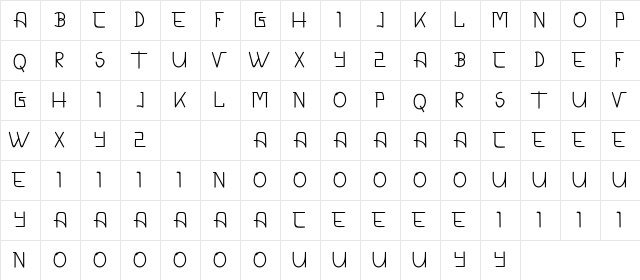
CALDERDALE DEMO Light
| Foundry | edric studio |
| Designer | Yasri |
Design Context for CALDERDALE DEMO Typeface
CALDERDALE DEMO is a composed and adaptable typeface that performs quietly and consistently across a wide range of design contexts. The delicate stroke weight brings airiness and refinement to layouts.